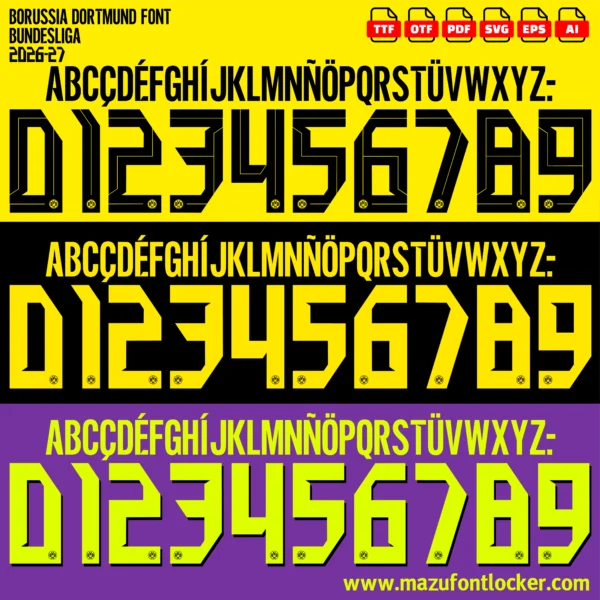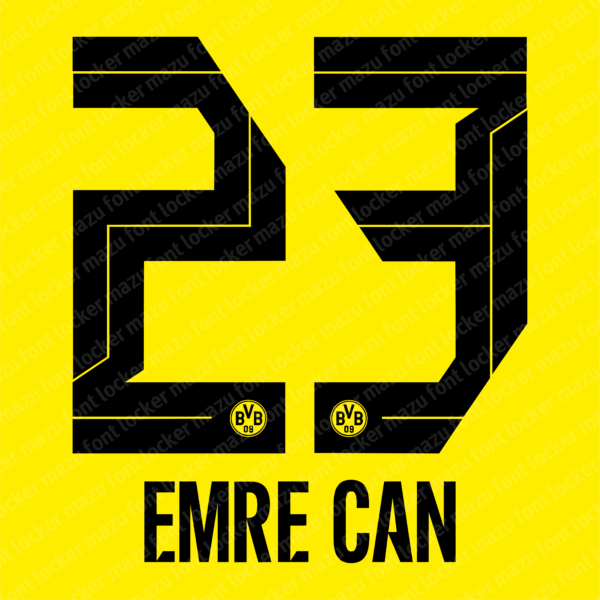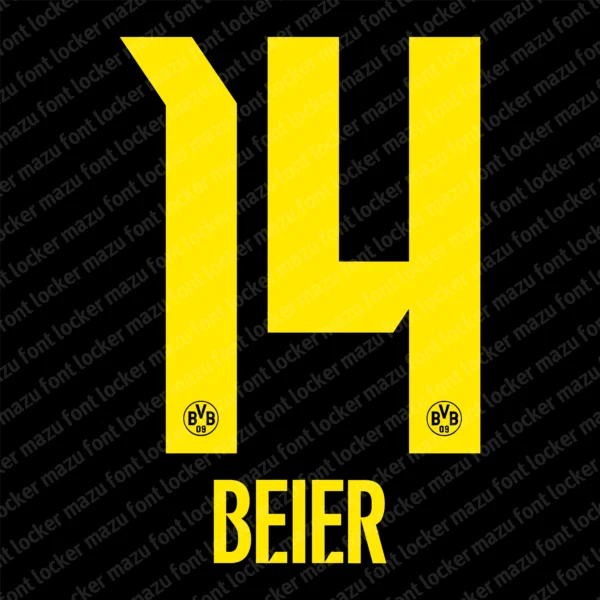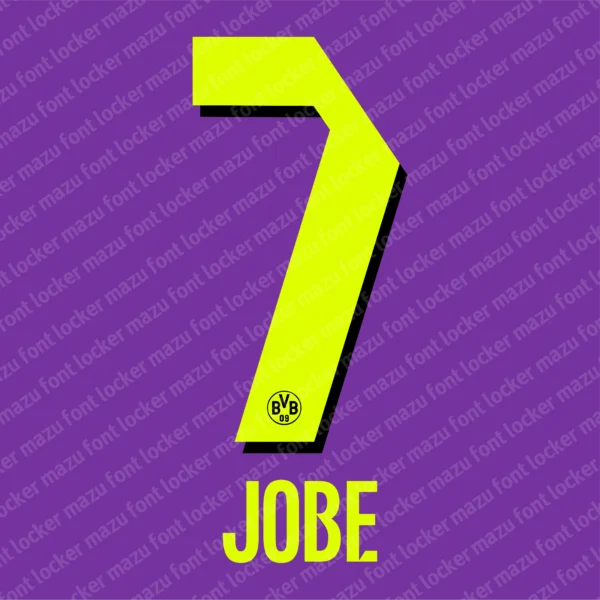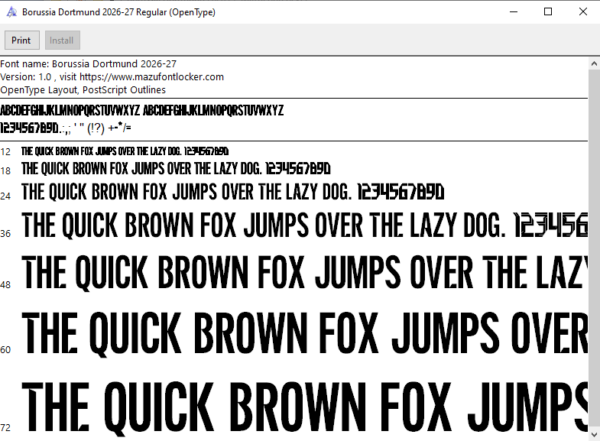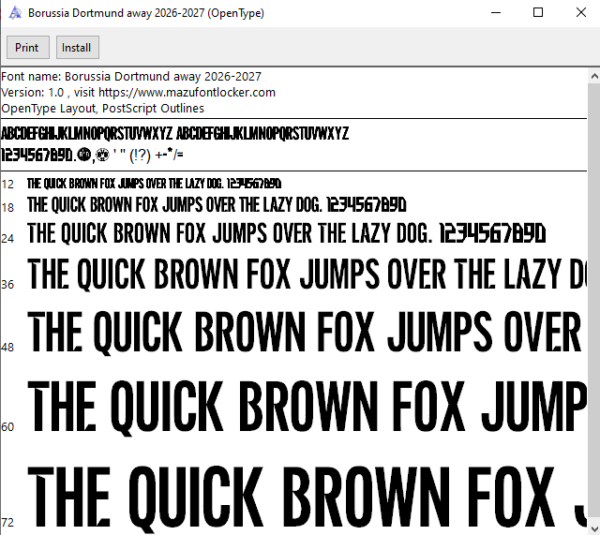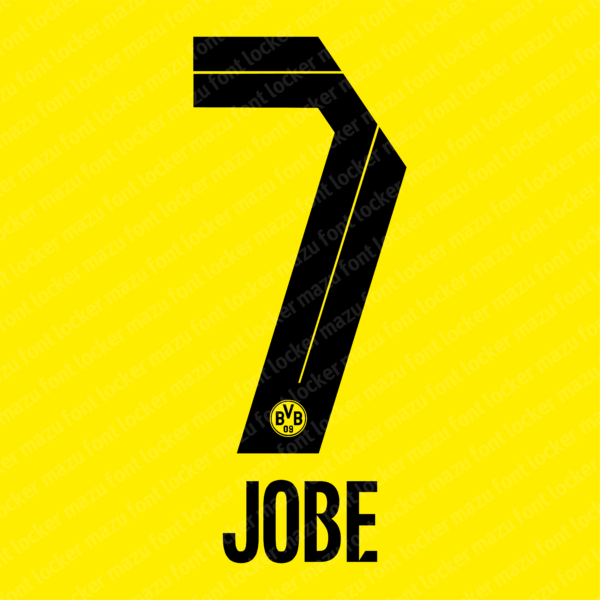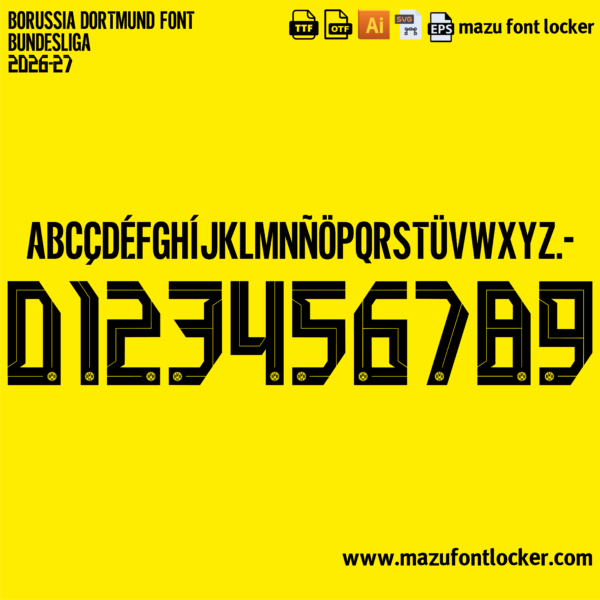
Borussia Dortmund 2026-2027 Font Vector – Stunning Schwarzgelben Masterpiece
This font captures the commanding, steel-sharp, lightning-strike, and precision-engineered lettering that perfectly embodies Borussia Dortmund’s iconic club identity, proud German & Dortmund heritage, never-back-down mentality, and raw football power — delivering unmatched authenticity, premium quality, explosive energy, and elite Bundesliga & Champions League dominance for professional jersey mockups, dynamic football graphics, premium sports branding, passionate fan creations, and high-end design projects.
Borussia Dortmund 2026-2027 Font Vector – Iconic Yellow & Black Typeface
The Borussia Dortmund 2026-2027 Font Vector is a premium typeface that accurately recreates the official match lettering worn by Borussia Dortmund during the 2026-2027 seasons. This high-quality vector font kit captures the bold, clean, and instantly recognizable typography that perfectly complements the club’s iconic yellow and black identity.
Designed for professional designers, football enthusiasts, and passionate Borussia Dortmund supporters, the Borussia Dortmund 2026-2027 Font Vector delivers exceptional authenticity for creating realistic jersey mockups, football merchandise, social media graphics, match posters, and custom fan artwork. Every character has been carefully recreated to match the powerful and precise visual style of one of Germany’s most successful and historic football clubs.
Why Choose Borussia Dortmund 2026-2027 Font Vector
This font stands out thanks to its precise vector construction and authentic club styling. Every letter and numeral has been meticulously recreated to match the official shirt lettering used throughout the 2026-2027 Bundesliga, DFB-Pokal, and European campaigns. Whether you’re producing professional kit templates or creating eye-catching football content, the Borussia Dortmund 2026-2027 Font Vector delivers a genuine match-ready appearance.
The lettering featured in the Borussia Dortmund 2026-2027 Font Vector combines clean geometric lines with powerful modern proportions. The result is a premium and highly readable typeface that reflects Borussia Dortmund’s ambition, Ruhr pride, and passionate global fanbase across multiple seasons.
- Complete uppercase A–Z alphabet and numbers 0–9 in authentic Borussia Dortmund 2026-2027 style
- Special Borussia Dortmund badge glyph – Press the “:” (Colon) key to insert the club badge
Borussia Dortmund 2026-2027 Seasons
The 2026-2027 period marked an eventful chapter for Borussia Dortmund as they competed across the Bundesliga, DFB-Pokal, and European competitions with determination and ambition. Wearing their iconic yellow and black colors, the club created memorable moments for their loyal supporters worldwide.